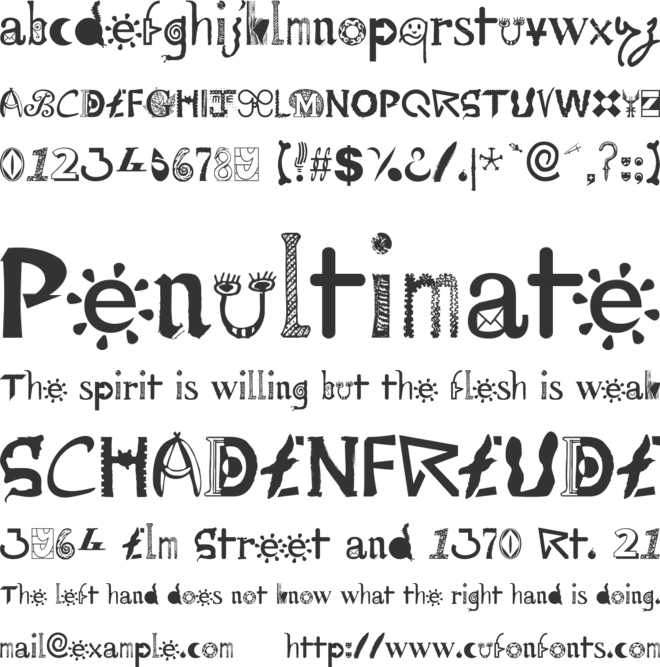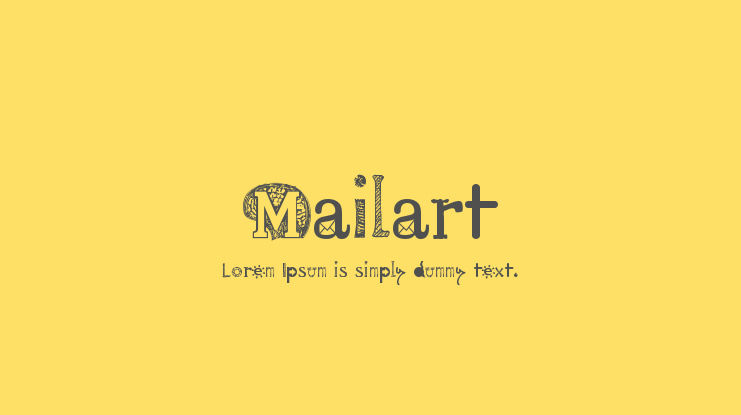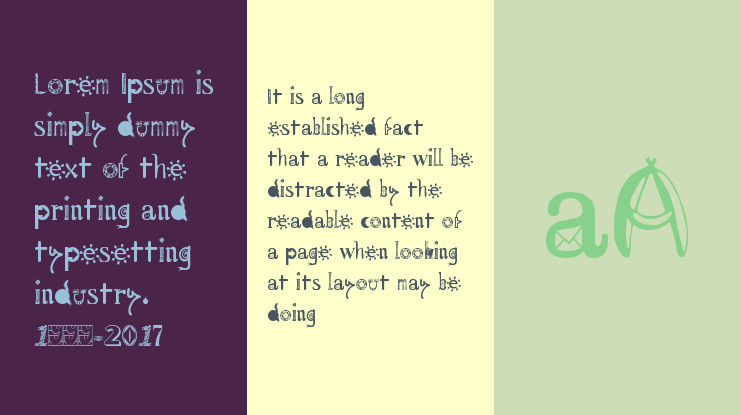
Mailart Font Family
150 snailmail and email invitations were sent to mailartists with a graphic design flair asking them to send one character for this eclectic typeface. The font possesses a fragmentary unity that reflects the mail art process, use it anywhere that needs a little postal punkiness.